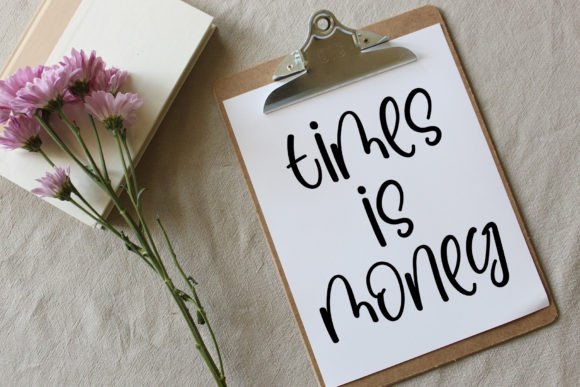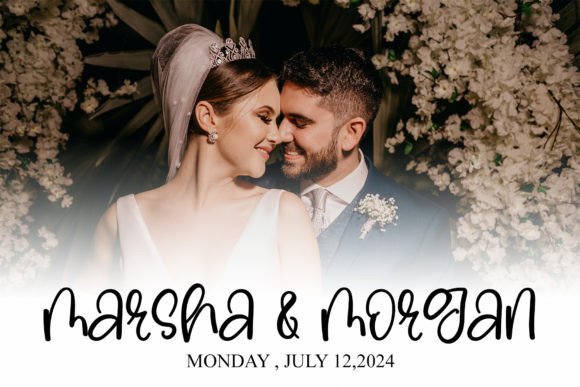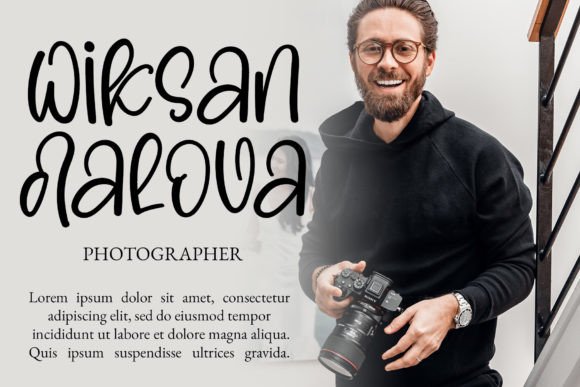
Introduction to Skylander Font
Skylander is a delightful script font brimming with charm and whimsy.
Its playful curves and friendly demeanor evoke a sense of camaraderie and joy Perfect for children’s books, party invitations, or any design project that seeks to radiate warmth and cheerfulness.